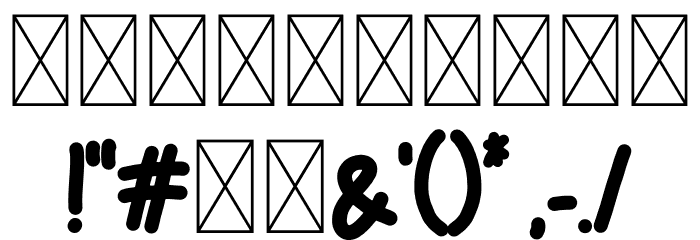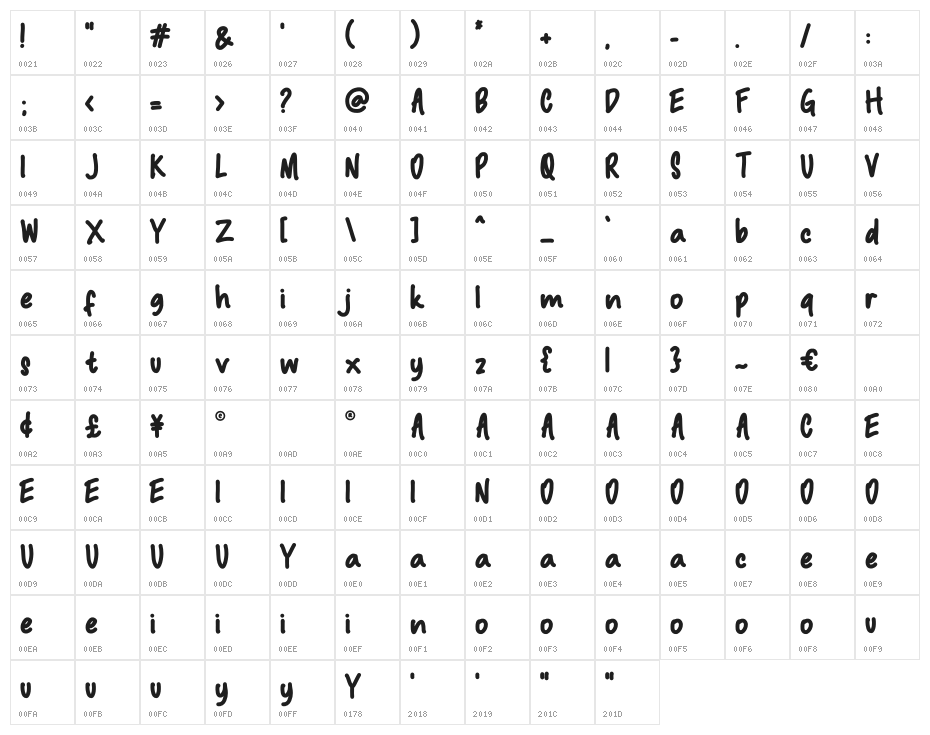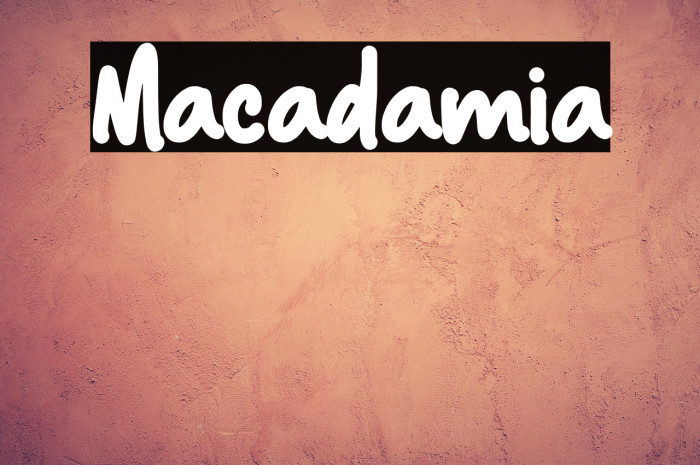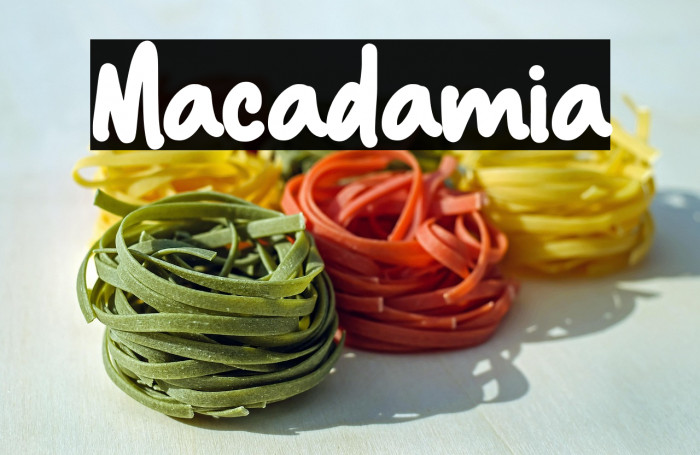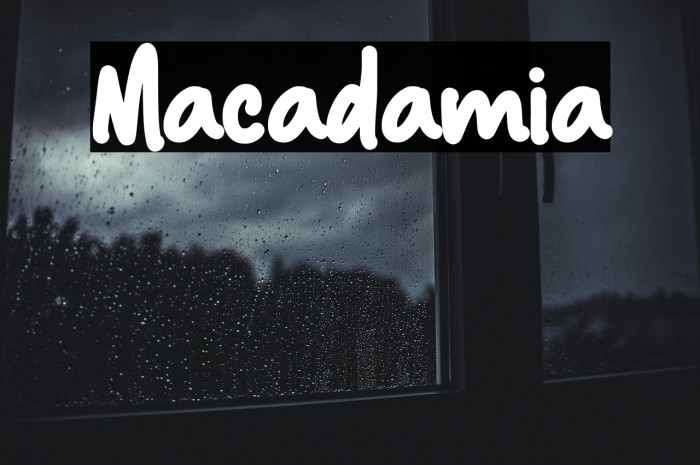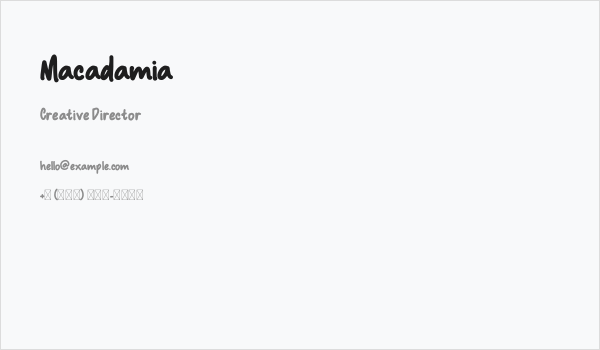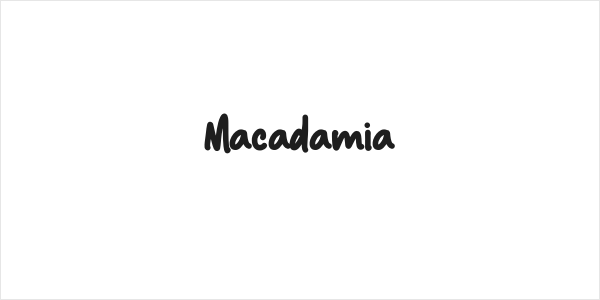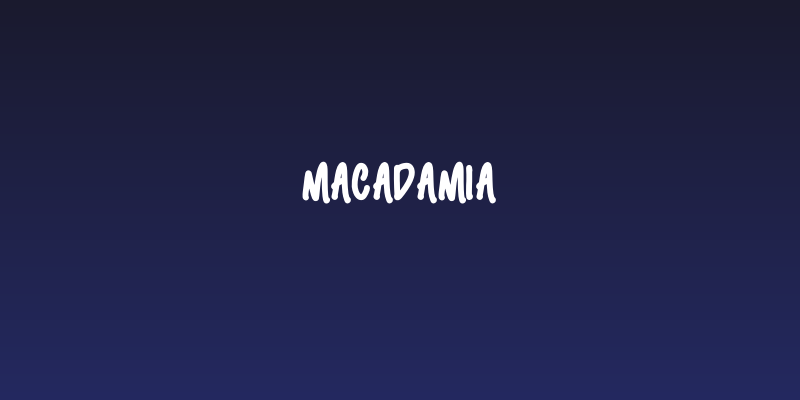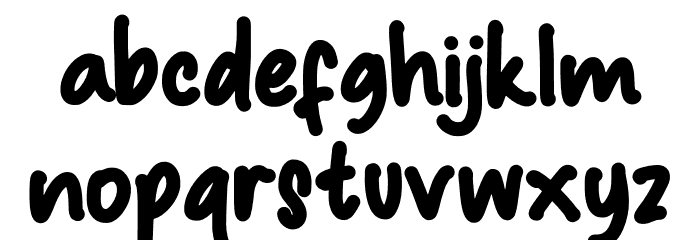
Macadamia Font
Macadamia Description
This font features a playful and bold handwritten style, characterized by its thick, rounded strokes and casual appearance. The uppercase letters are uniformly bold, with a slight slant that adds a dynamic feel. The lowercase letters maintain the same playful aesthetic, with a consistent thickness that ensures readability. The font's informal style is further emphasized by its slightly irregular shapes, giving it a personal and approachable touch. The special characters and punctuation follow the same design principles, ensuring a cohesive look across all elements. This font is ideal for projects that require a friendly and informal tone, such as children's books, casual branding, or creative posters.
| Overall Style | Playful, Casual |
| Proposed Projects | Ideal for children's books, casual branding, creative posters, and informal invitations. |